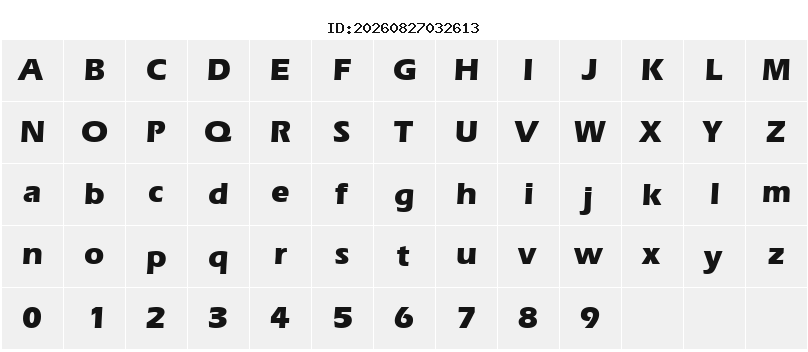
765-CAI978.ttf is a modern, elegant sans-serif font designed for ultimate readability and visual harmony. Perfect for branding, headlines, web design, and print materials.